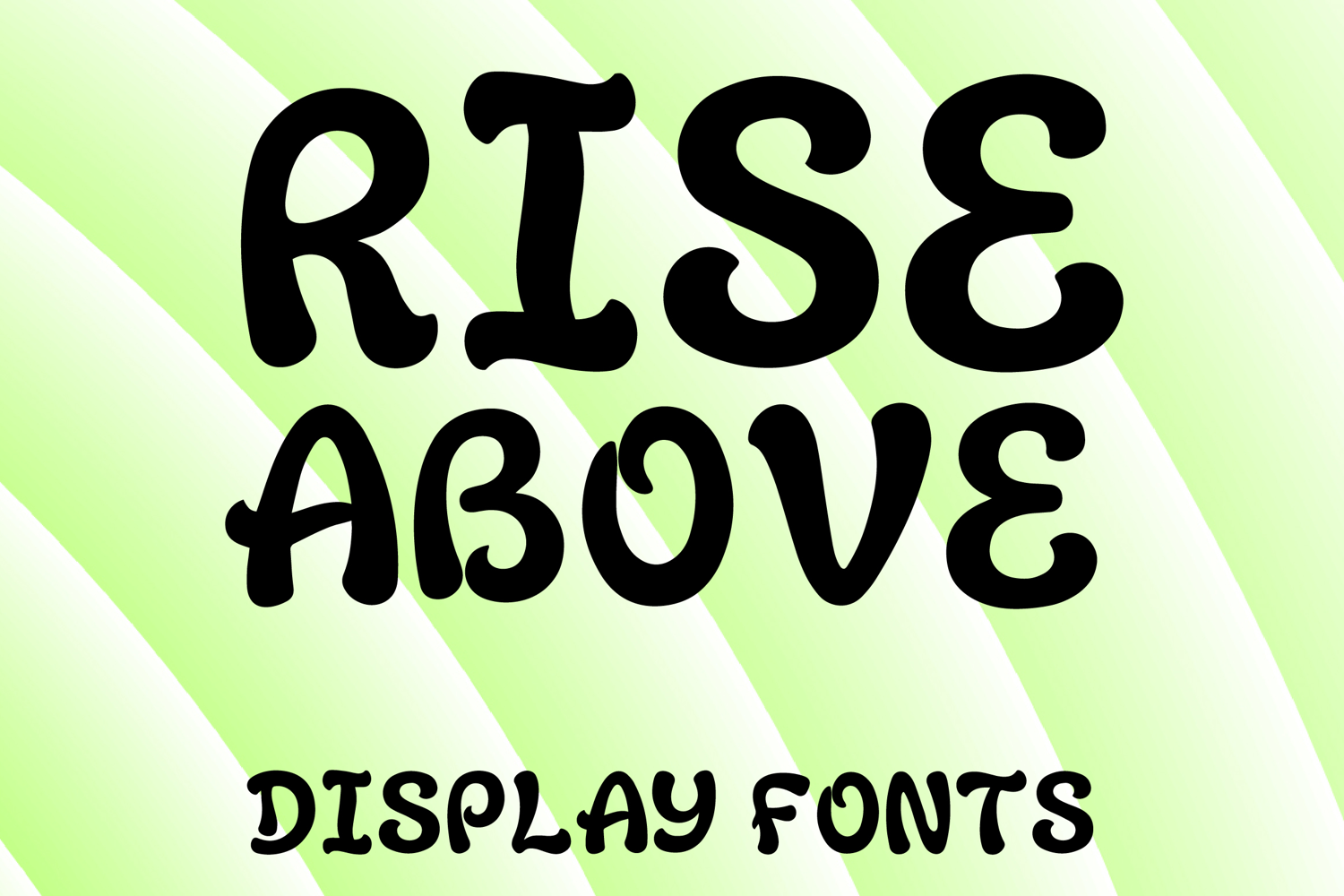
RISE ABOVE
RISE ABOVE is a bold decorative display font with a playful retro-inspired style and soft handcrafted charm. Its uppercase letterforms feature thick rounded strokes, flowing curves, and whimsical curled terminals that create a cheerful, stylish, and eye-catching look. Designed with uppercase letters A–Z and numbers 0–9, RISE ABOVE is perfect for branding, posters, packaging, invitations, quotes, social media graphics, and creative projects that need a joyful and memorable statement.